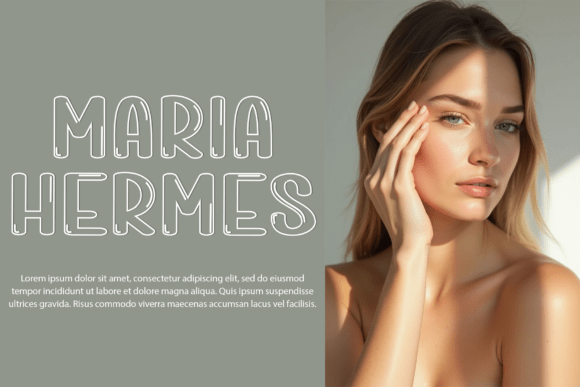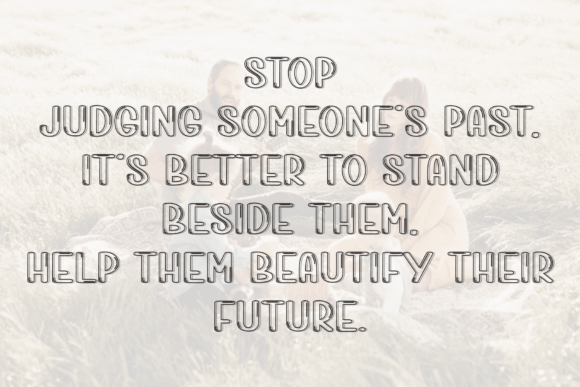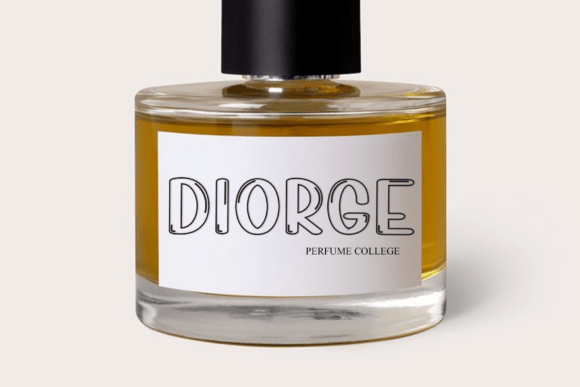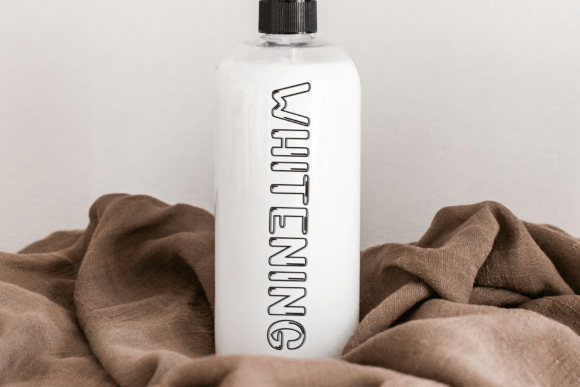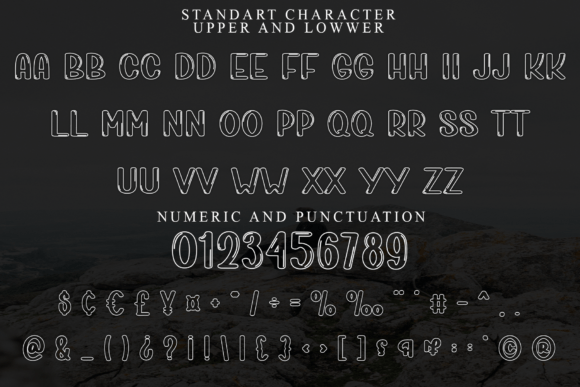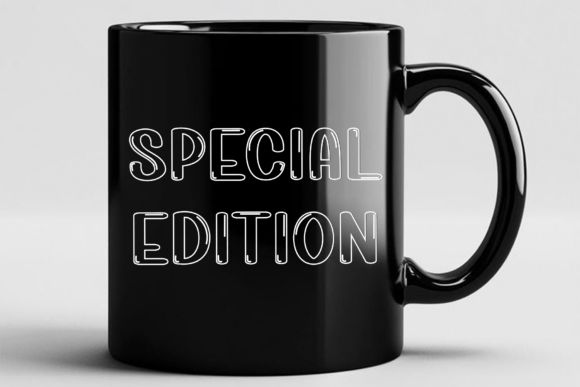
The Designer’s Delight: Bubble Over Font
Have you ever been in the middle of a design project, and suddenly, you’re stuck on finding the perfect font? I recall a particularly frustrating experience while working on a client’s branding project. The client wanted a font that was both playful and elegant, but I just couldn’t seem to find the right fit. That’s when I stumbled upon the Bubble Over font, and it completely transformed my design. In this article, we’ll dive into the world of Bubble Over, exploring its unique features, versatility, and how to make the most of it in your designs.
A Personal Review: What I Love About Bubble Over
Bubble Over has become a staple in my design toolkit, and for good reason. Here are some of the things that I love about this beautiful font:
- ✨ Unique and eye-catching design: The soft, rounded strokes of Bubble Over give it a distinctive character that’s hard to find in other fonts.
- ✅ Versatility: This font is perfect for a wide range of design projects, from crafts to creative works, and even large-scale commercial products.
- 🎨 Variety of characters: The font comes with a range of characters, giving you plenty of options to experiment with and add some personality to your designs.
While Bubble Over is an amazing font, there are a few things to keep in mind:
- 🤔 Limited use in very formal designs: Bubble Over’s playful nature might not make it the best fit for very formal or corporate designs.
- ⚠️ Some characters may require manual adjustment: Depending on the application you’re using, you might need to manually adjust some characters to get the best results.
The Story Behind Bubble Over
The story behind Bubble Over’s creation is one of passion and dedication. According to its designer, Bubble Over was inspired by the whimsical world of childhood imagination. The designer wanted to create a font that captured the essence of playfulness and creativity, while still being elegant and sophisticated. And so, Bubble Over was born – a font that’s equal parts fun and refined.
| Is Bubble Over suitable for body text? | While Bubble Over is a beautiful font, it’s best suited for headlines, titles, and short paragraphs. For body text, you may want to choose a more traditional font. |